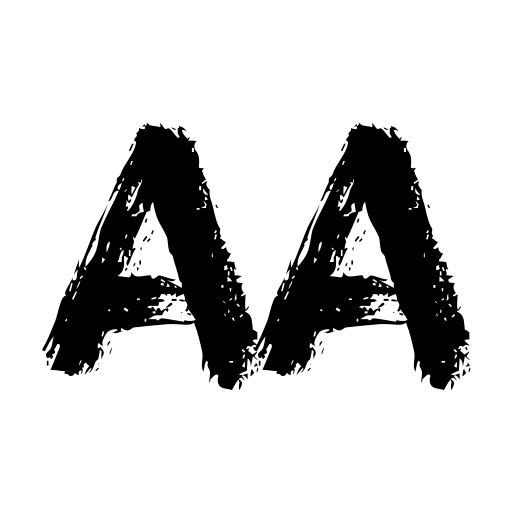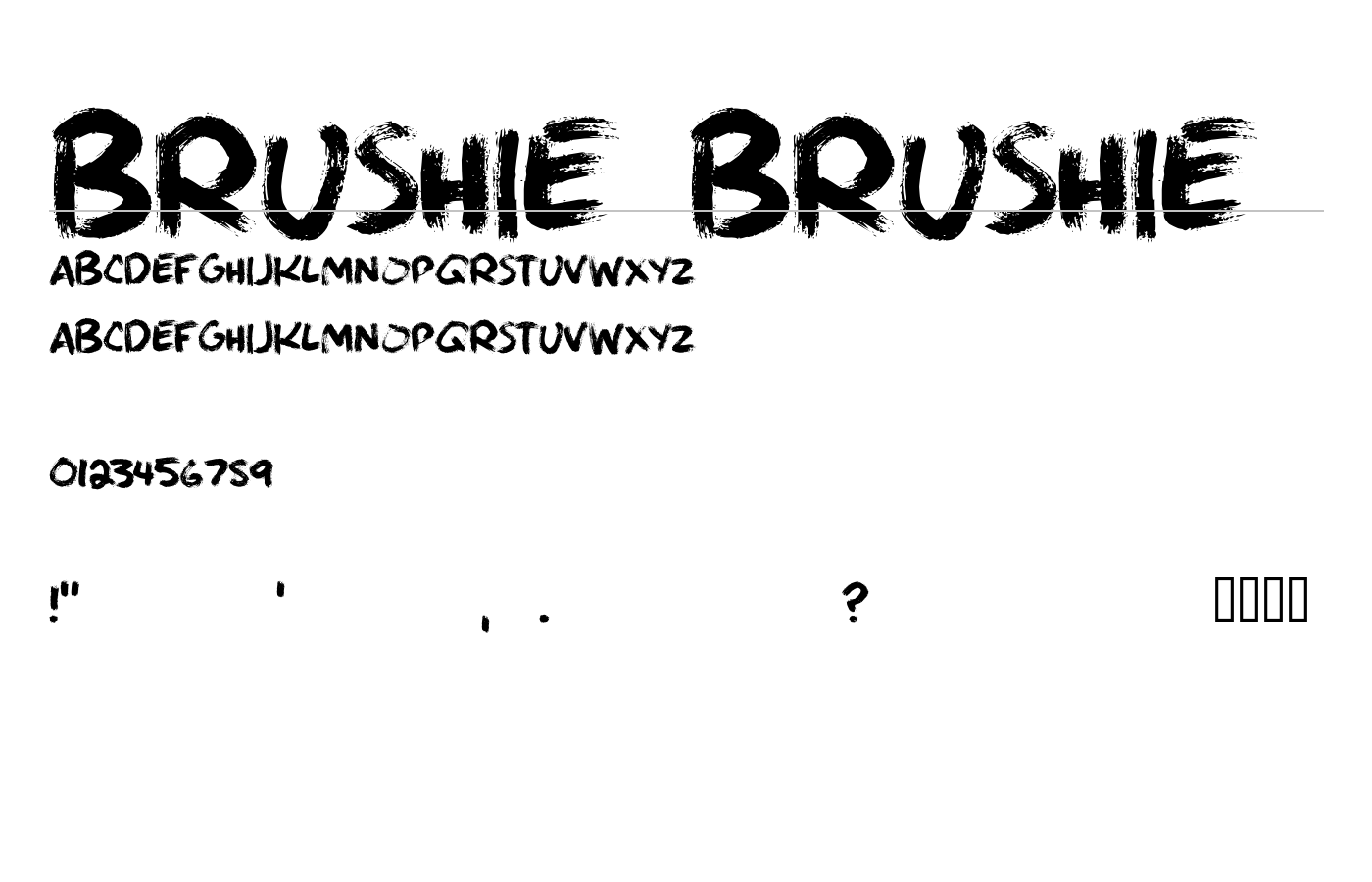
Brushie is a bold, hand-drawn brush script font with a textured, rough edge that gives it a lively and organic feel. Its irregular strokes and casual style make it perfect for creative and energetic designs, such as posters, logos, or packaging that want to convey a playful and artistic vibe. This font works best in display use where its unique, handmade character can stand out and add personality.
Brushie Font
About Brushie Font
| Font family | Brushie Font |